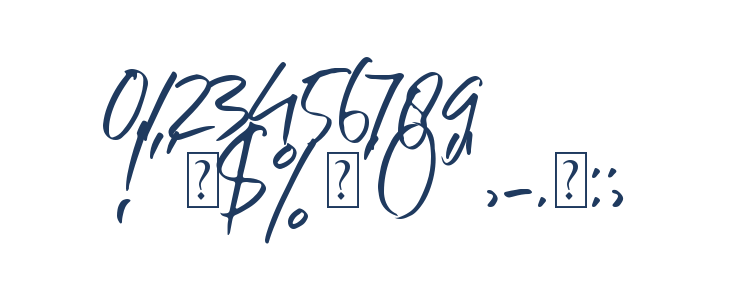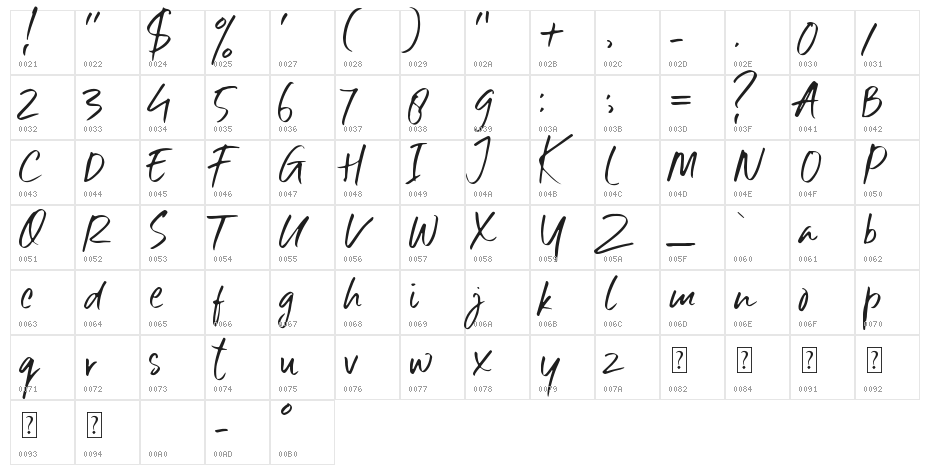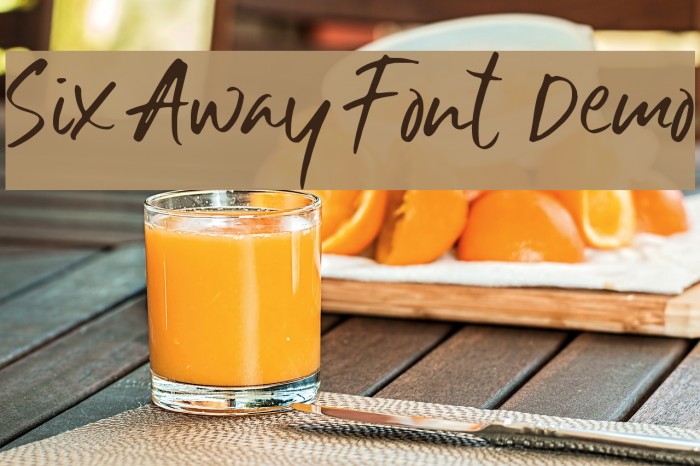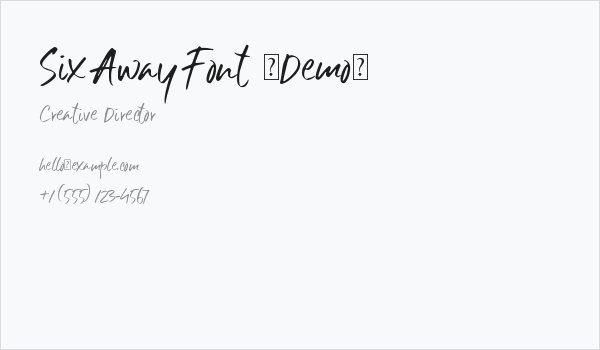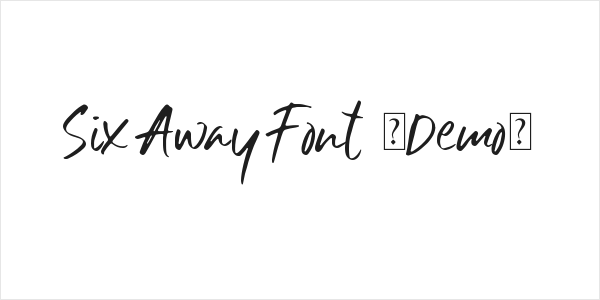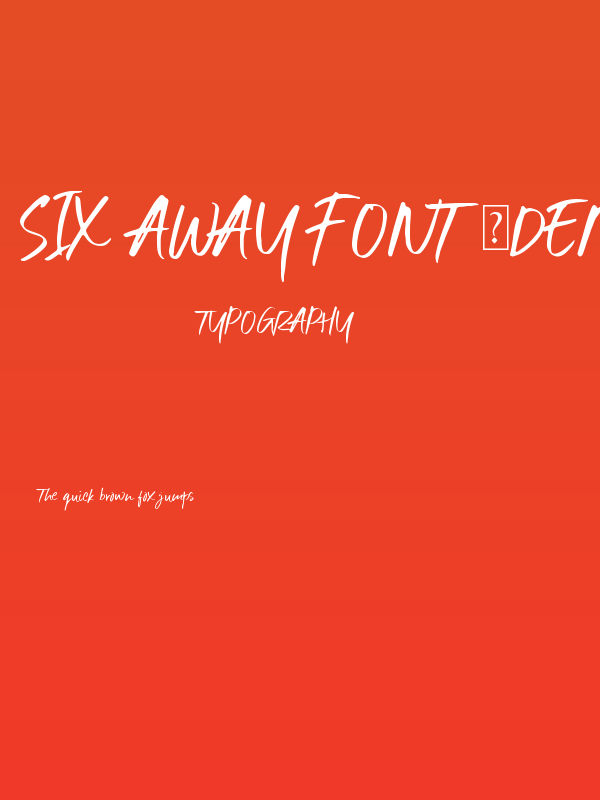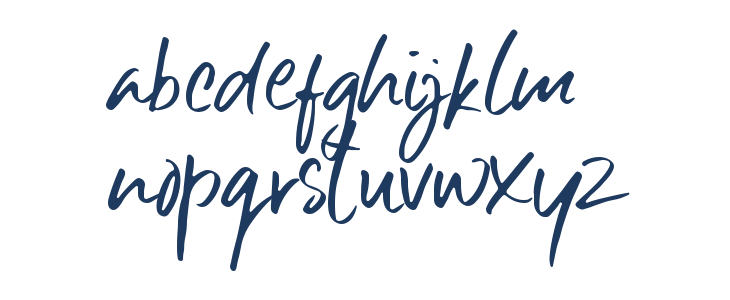
Six Away Font [Demo] Font
Six Away Font [Demo] Description
This font exhibits a dynamic and energetic handwritten style, characterized by its fluid and expressive strokes. The letters are crafted with a sense of movement, giving them a lively and spontaneous appearance. The uppercase and lowercase letters maintain a consistent style, with slightly exaggerated curves and angles that enhance their visual appeal. The numerals and special characters follow the same aesthetic, ensuring a cohesive look across all glyphs. This font's informal and artistic nature makes it suitable for creative projects that require a personal touch.
| Proposed Projects | Ideal for greeting cards, invitations, artistic posters, and branding projects that seek a personal and creative flair. |